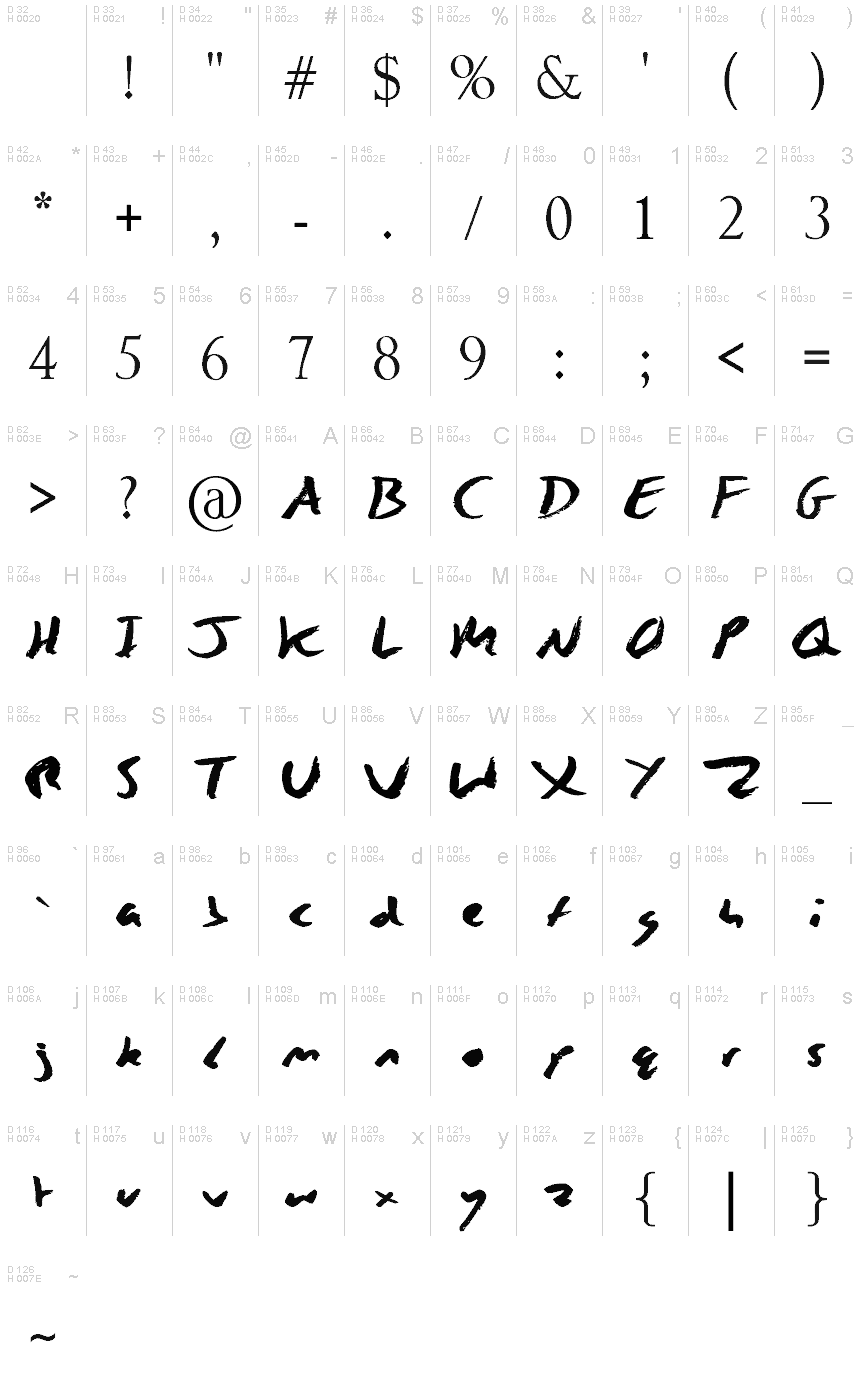
Zing Easy
Zing Easy, designed by JSH creates, offers a bold and fluid brush style that exudes a sense of effortless flair. The font's thick strokes and variable widths create a dynamic rhythm, making it visually compelling and full of character. With its casual yet striking appearance, Zing Easy is perfectly suited for projects that require a touch of personality without sacrificing readability.
The brush style of Zing Easy carries with it an artistic quality that can enhance the aesthetic appeal of any creative endeavor. From branding projects to advertising campaigns, and even personal invitations or greeting cards, this font's bold weight ensures it stands out while maintaining an air of approachability.
Embrace the creative potential of Zing Easy for designs that call for a fusion of modern vibrancy and classic brush artistry.